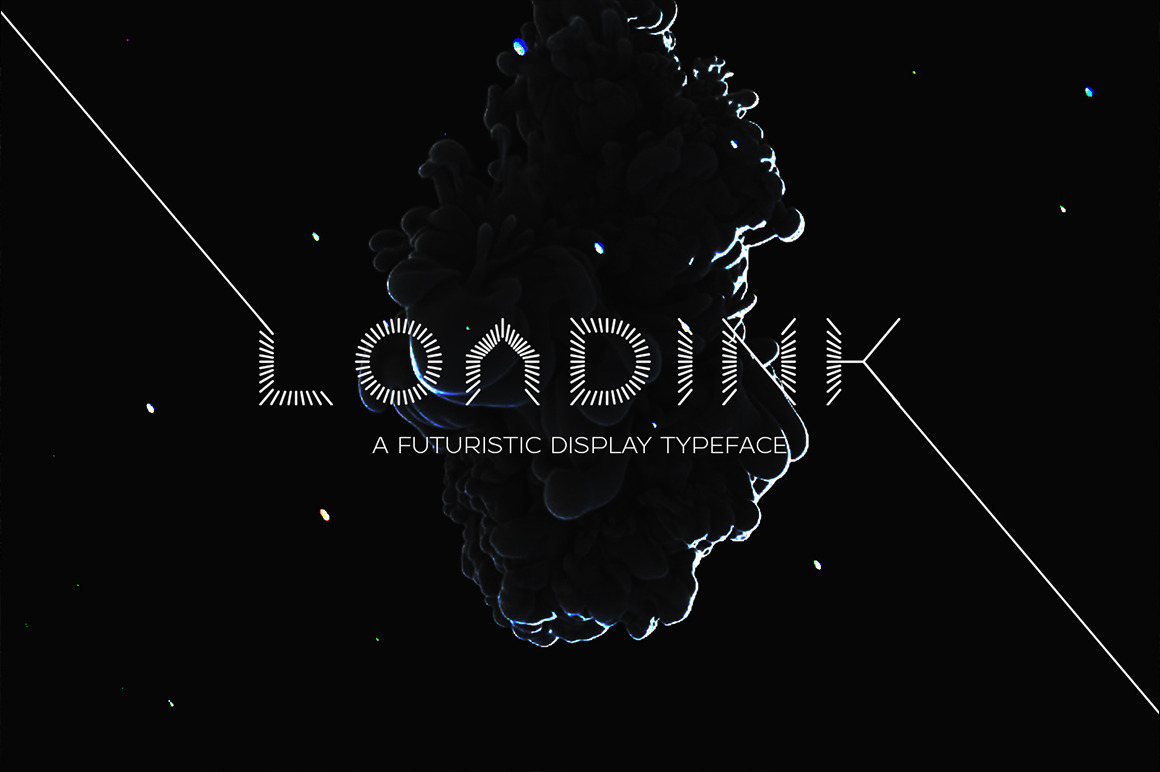
LOADINK Typeface
LOADINK a futuristic display typeface.
Basic version consists of capital letters, numerals, and necessary additional punctuation.
Brilliant choice for Logos, large to medium size font needs, say magazine headlines, sci - fi contents, posters, animation videos and such stuff.
The recommended minimum size is 48px. But I would prefer to use them in large sizes for signs in interior/exterior.
- Alternatives for M,W alphabets